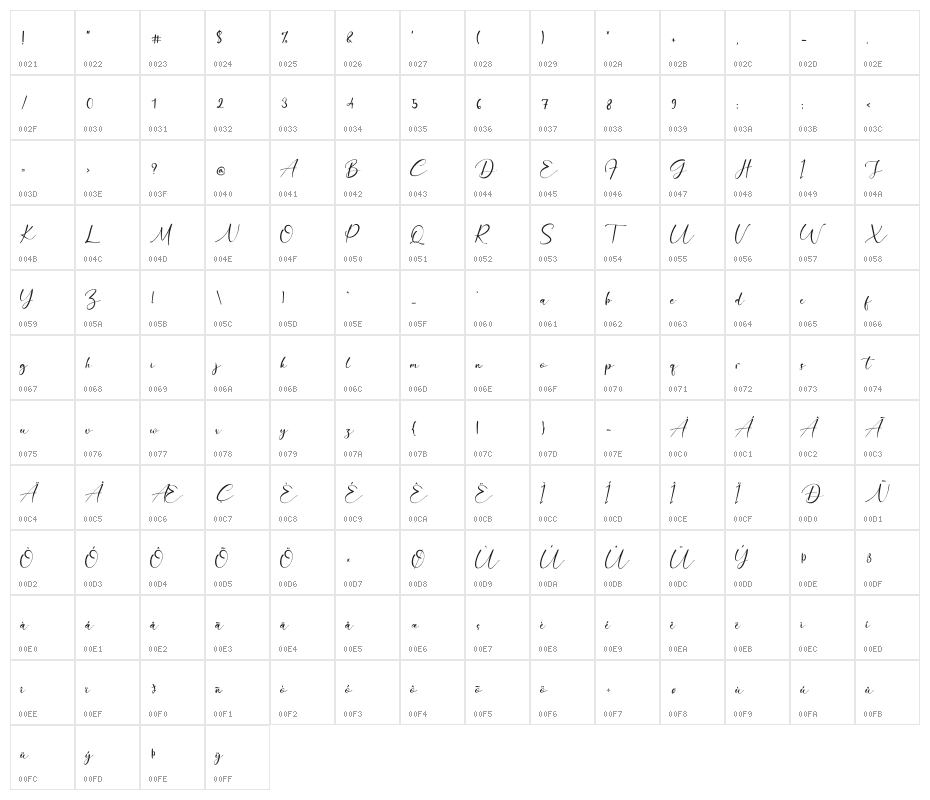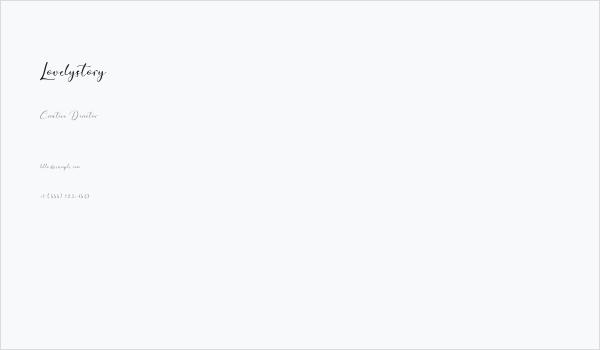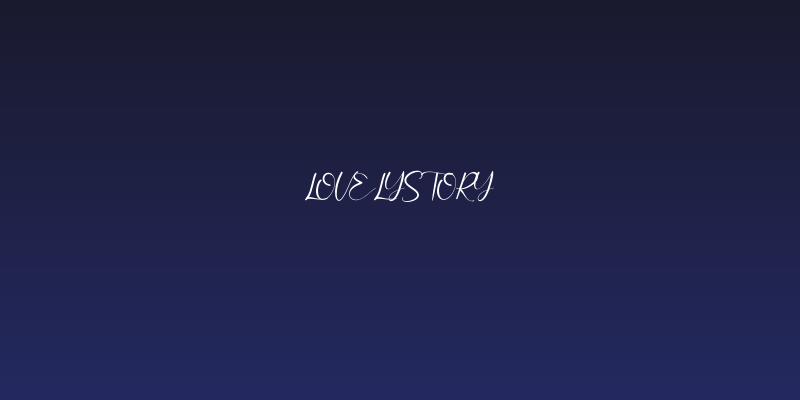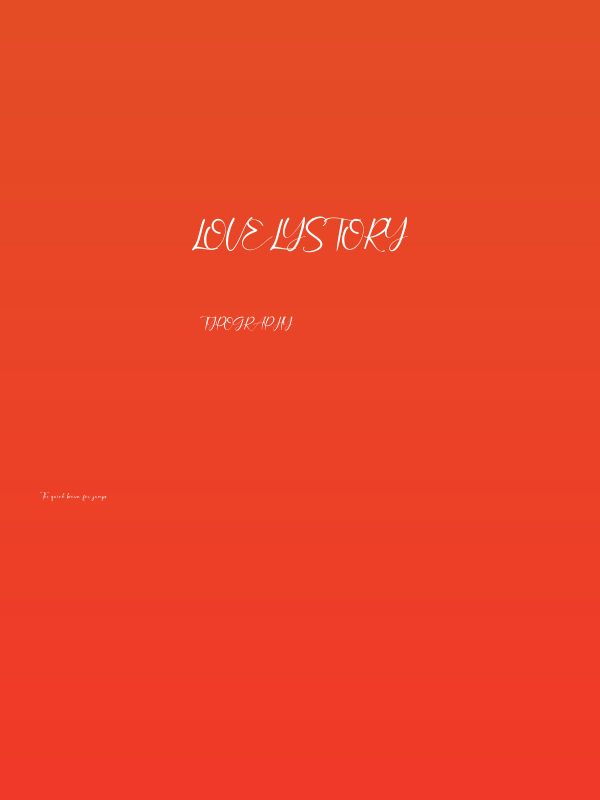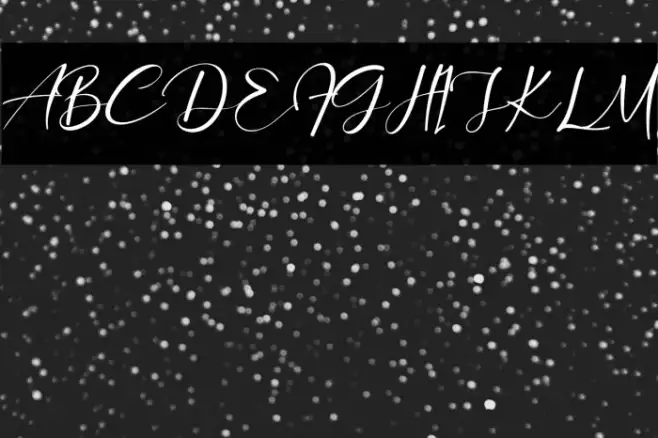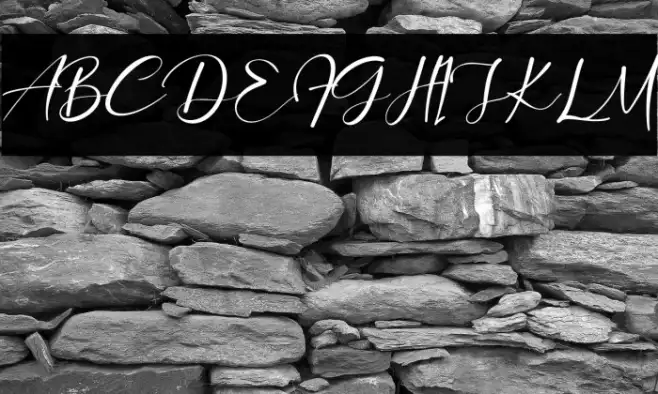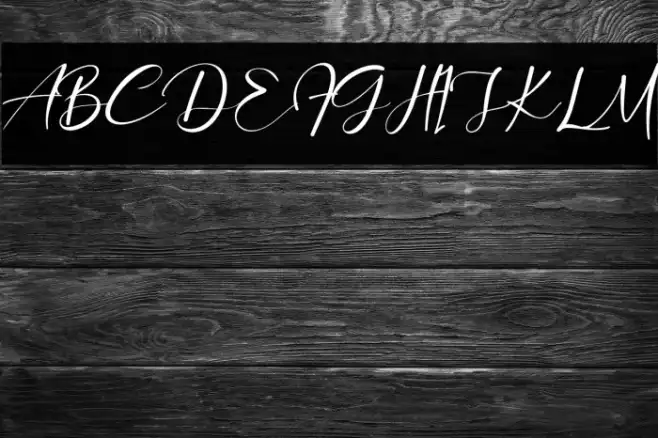
Lovelystory Font
Lovelystory Description
This elegant script font features a flowing, cursive style with a modern twist. The uppercase letters are characterized by their sweeping, graceful lines and subtle flourishes, giving them a sophisticated and artistic appearance. The lowercase letters maintain a consistent flow, with gentle curves and loops that enhance readability while retaining a sense of elegance. The numerals are designed to complement the letters, with a similar fluidity and style. Special characters are included, matching the overall aesthetic with their own unique flair. This font is perfect for projects that require a touch of elegance and sophistication, such as wedding invitations, branding, and high-end product packaging.
| Overall Style | Modern, Elegant |
| Use Case | Headlines, Invitations, Branding |
| Proposed Projects | Ideal for wedding invitations, luxury branding, elegant product packaging, and artistic designs. |